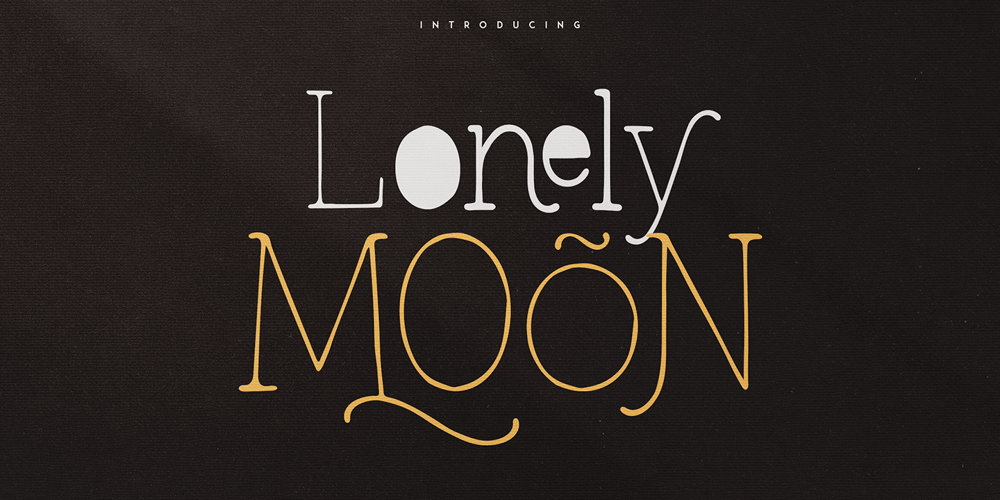
Lonely Moon VP Font Family was designed by Vladimir Fedotov, Plamen Petrov and published by VP Creative Shop. Lonely Moon VP contains 3 styles and family package options. Introducing Lonely Moon – Handmade typeface – 3 fontsLonely Moon is handwritten and retro slab serif typeface loaded with 3 fonts, alternate, ligature glyphs and multilingual support to enchant your next project. Very versatile fonts that works great in large and small sizes.Lonely Moon is perfect for branding projects, home-ware designs, product packaging, magazine headers – or simply as a stylish text overlay to any background image.Language SupportAfrikaans, Albanian, Asu, Basque, Bemba, Bena, Breton, Chiga, Colognian, Cornish, Czech, Danish, Dutch, Embu, English, Estonian, Faroese, Filipino, Finnish, Frenc,h Friulian, Galician, Ganda, German, Gusii, Hungarian, Indonesian, Irish, Italian, Jola-Fonyi, Kabuverdianu, Kalenjin, Kamba, Kikuyu, Kinyarwanda, Latvian, Lithuanian, Lower Sorbian, Luo, Luxembourgish, Luyia, Machame, Makhuwa-Meetto, Makonde, Malagasy, Maltese, Manx, Mer,u Morisyen, North Ndebele, Norwegian, Bokmål, Norwegian, Nynorsk, Nyankole, Oromo, Polish, Portuguese, Quechua, Romanian, Romansh, Rombo, Rundi, Rwa, Samburu, Sango, Sangu, Scottish, Gaelic, Sena, Shambala, Shona, Slovak, Soga, Somali, Spanish, Swahili, Swedish, Swiss German, Taita, Teso, Turkish, Upper Sorbian, Uzbek (Latin), Volapük, Vunjo, Walser, Welsh, Western Frisian, ZuluFEATURES 3 styles Uppercase, lowercase, numeral, punctuation & Symbol Multilingual support – 87 languages alternate glyphs ligature glyphs How to access alternate glyphs?To access alternate glyphs in Adobe InDesign or Illustrator, choose Window Type & Tables GlyphsIn Photoshop, choose Window Glyphs. In the panel that opens, click the Show menu and choose Alternates for Selection. Double-click an alternate’s thumbnail to swap them out.Feel free to contact me if you have any questions!Mock ups and backgrounds used are not included.Thank you! Enjoy!